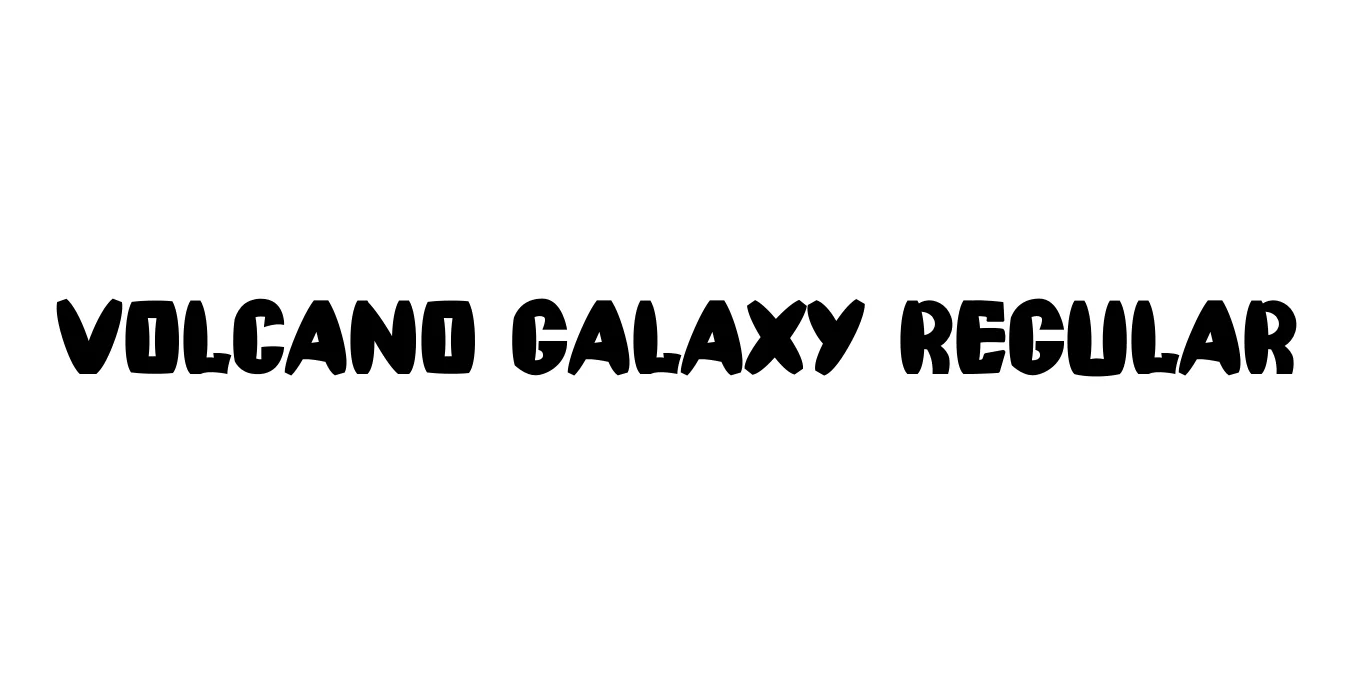
VOLCANO GALAXY Regular
Designed by Allertype
| Category | Display / Sci-Fi |
| Designer | Allertype |
Volcano Galaxy Regular is a bold, futuristic display font designed to capture the essence of sci-fi aesthetics and high-energy branding. Its unique letterforms blend sharp, angular cuts with subtle rounded edges, creating a sense of motion and cosmic power that makes it stand out in modern digital design landscapes.
Originally crafted for high-impact visual media, this font has gained popularity among digital artists and graphic designers for its versatility in futuristic themes. Whether used for space-themed projects, automotive branding, or cyberpunk aesthetics, its distinct look ensures a memorable presence in any professional creative composition.
VOLCANO GALAXY Regular Best Uses
Perfect for e-sports logos and game user interface design.
Ideal for technology startups and automotive company identities.
Great for sci-fi movie posters and high-energy event flyers.
Highly effective for YouTube thumbnails and high-impact Instagram headers.